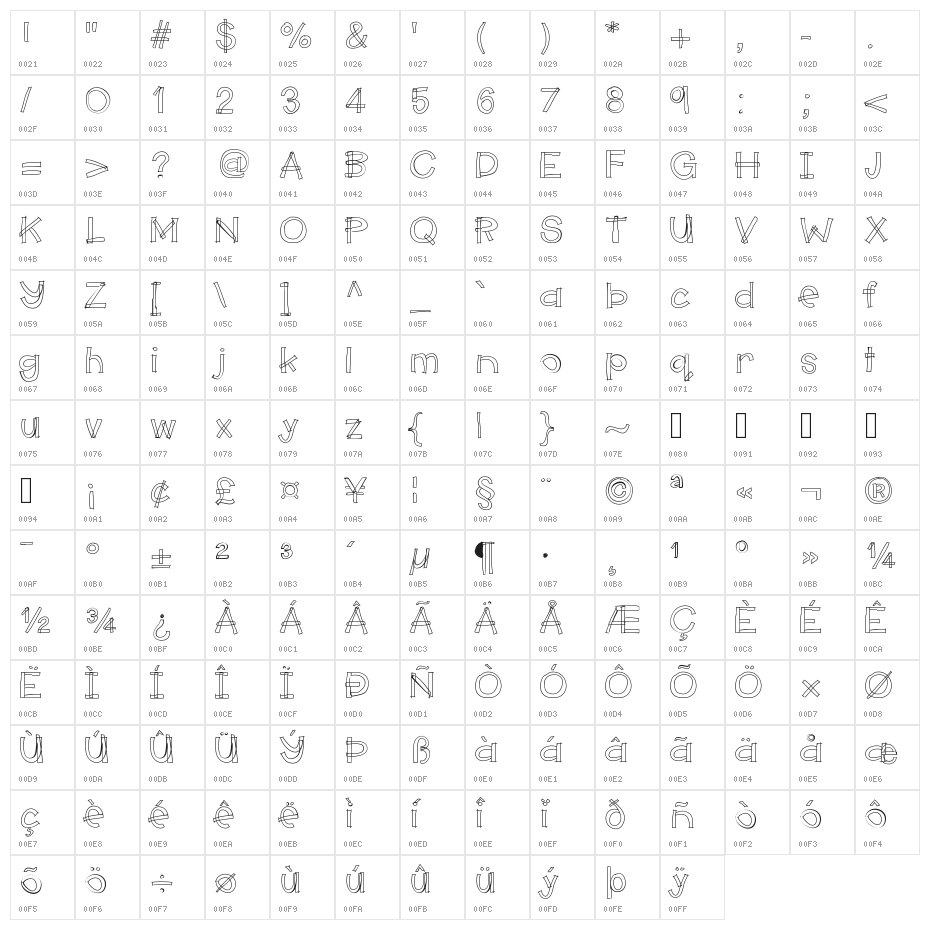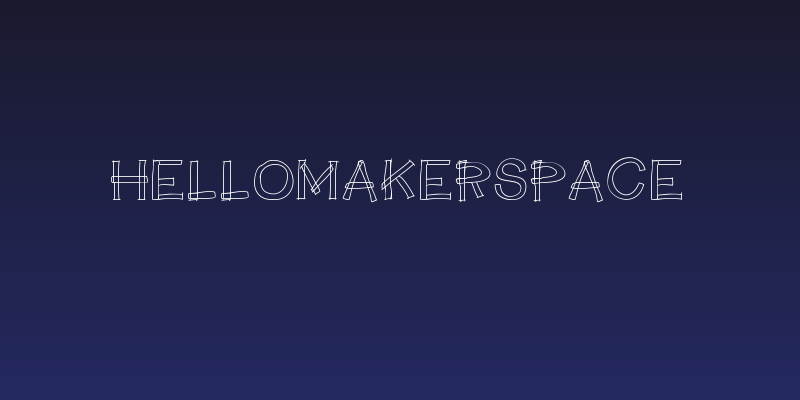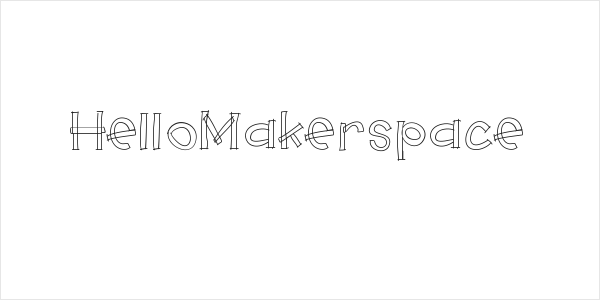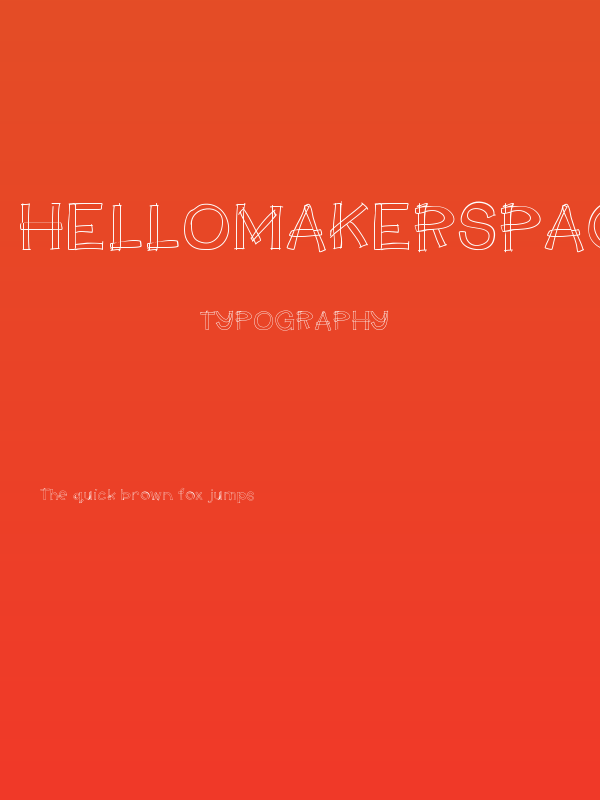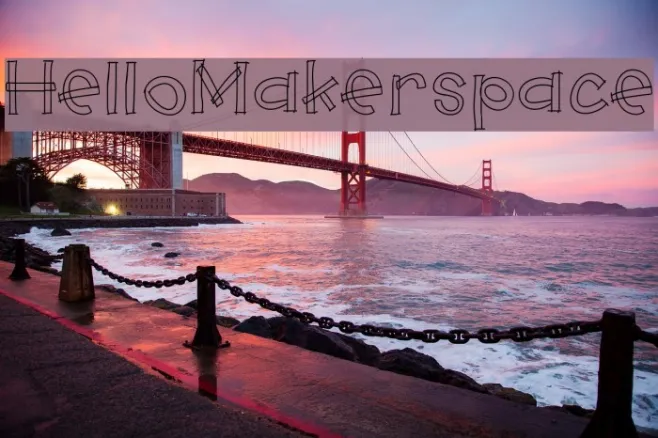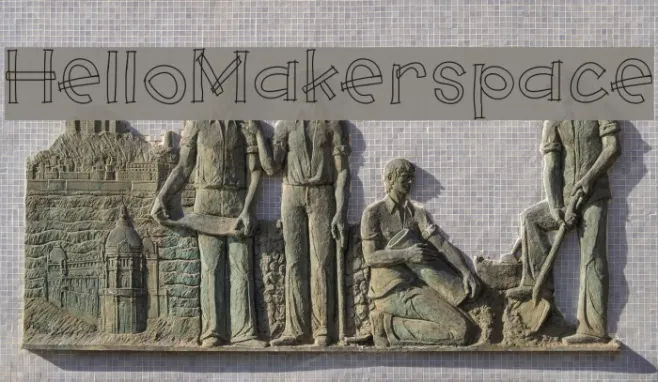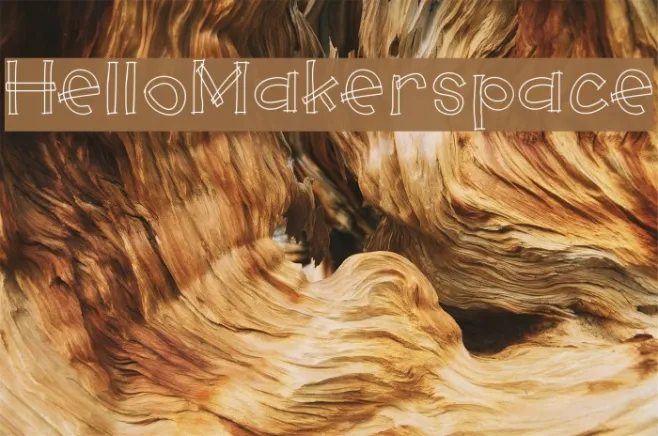
HelloMakerspace Font
HelloMakerspace Description
This font features a playful and artistic design, characterized by its hand-drawn, sketch-like appearance. Each letter is outlined with a double line, giving it a unique, layered look. The characters are slightly irregular, adding to the whimsical and informal feel. The uppercase and lowercase letters maintain a consistent style, with rounded edges and a casual flow. Numbers and special characters follow the same aesthetic, ensuring a cohesive look across all elements. This font's distinctive style makes it stand out, perfect for creative projects that require a touch of personality and charm.
| Overall Style | Whimsical, Artistic |
| Use Case | Headlines, Posters, Creative Projects |
| Proposed Projects | Ideal for children's books, creative posters, DIY crafts, and playful branding. |